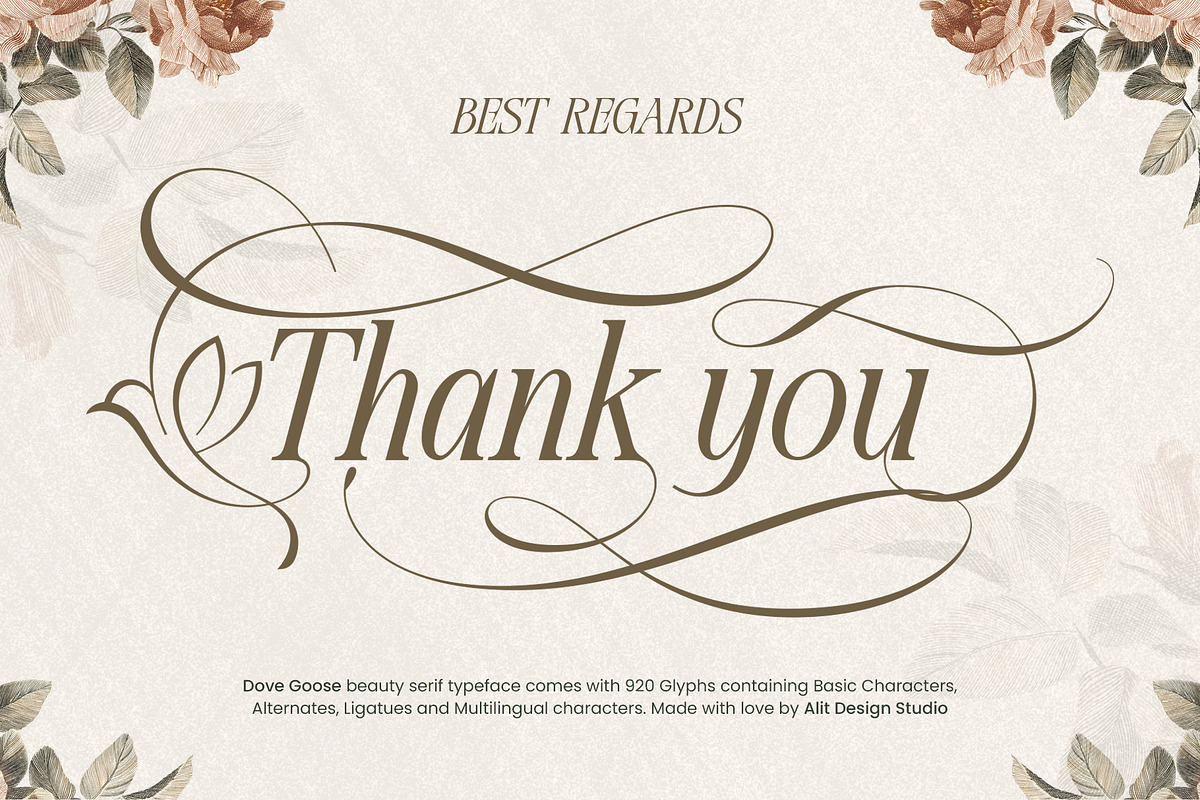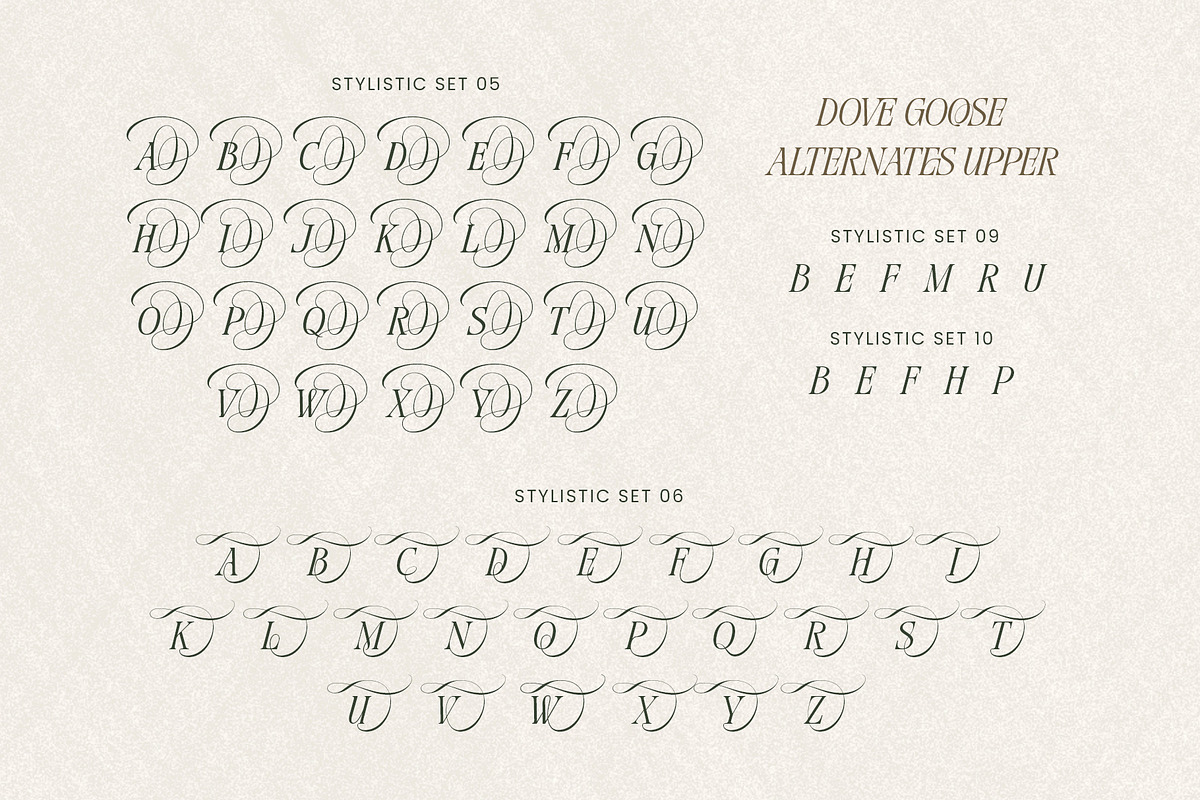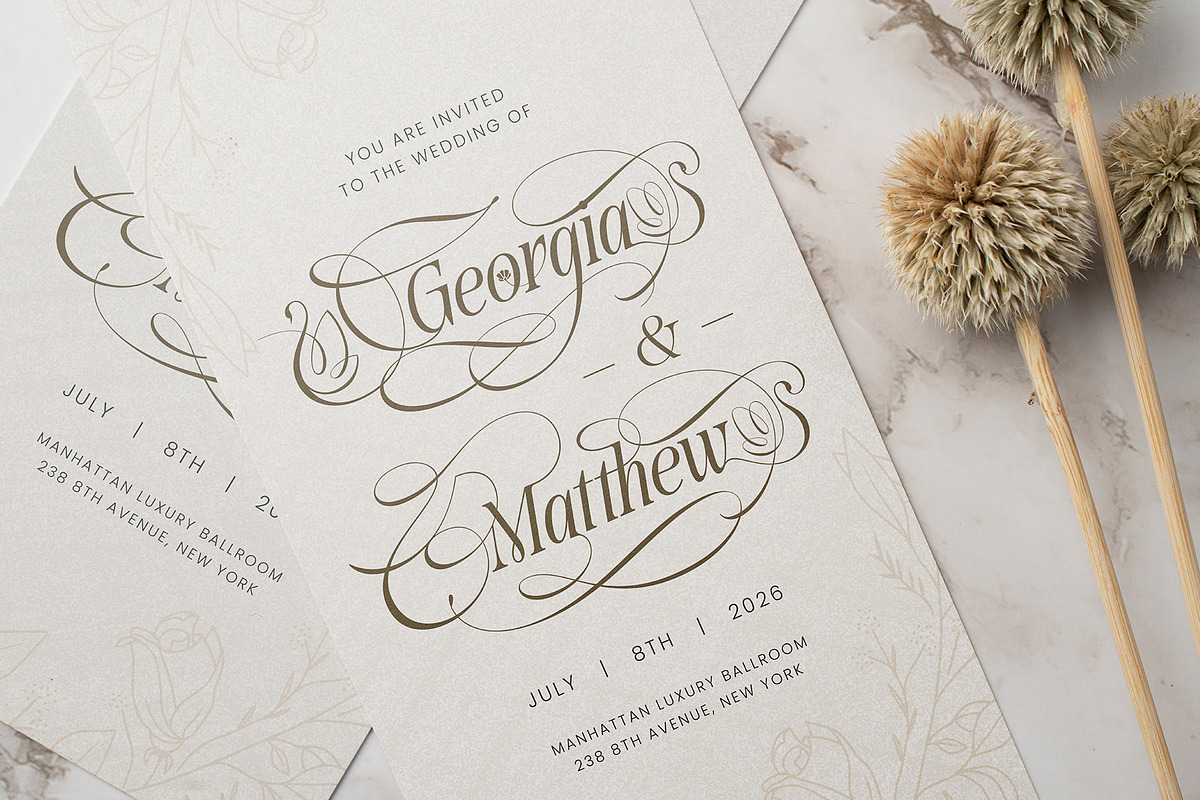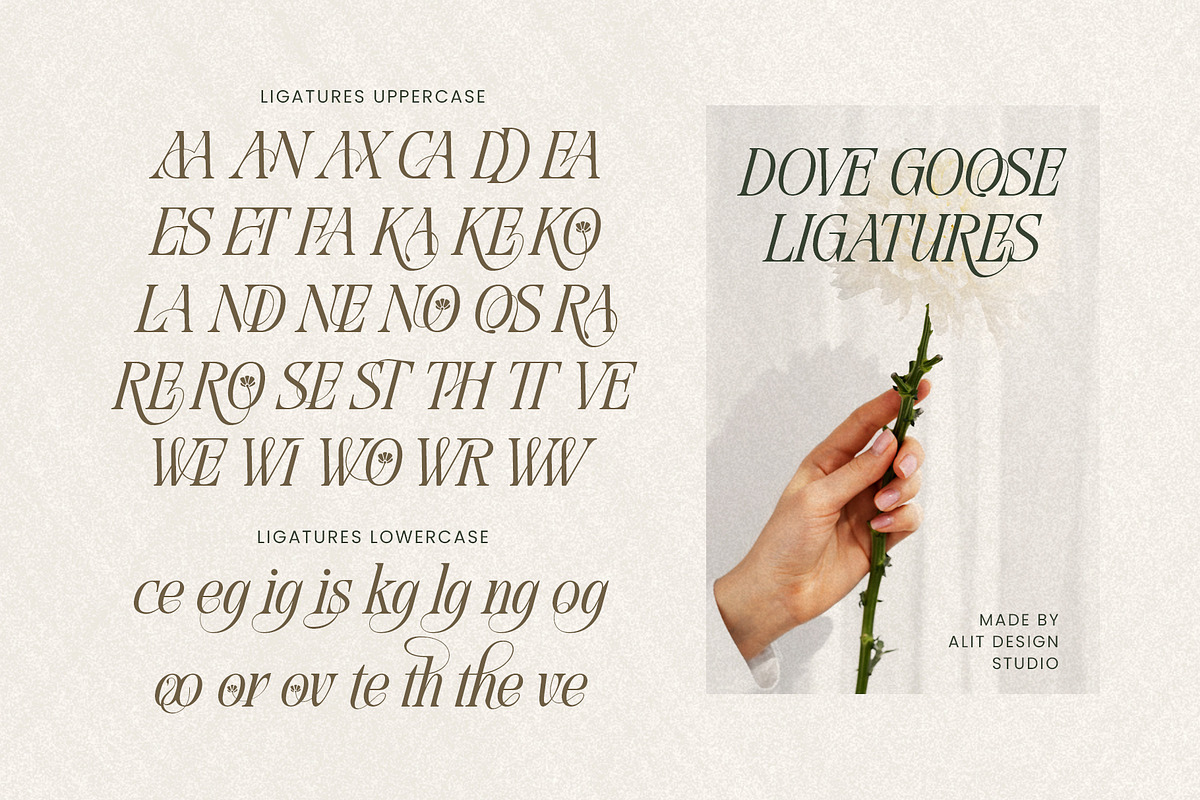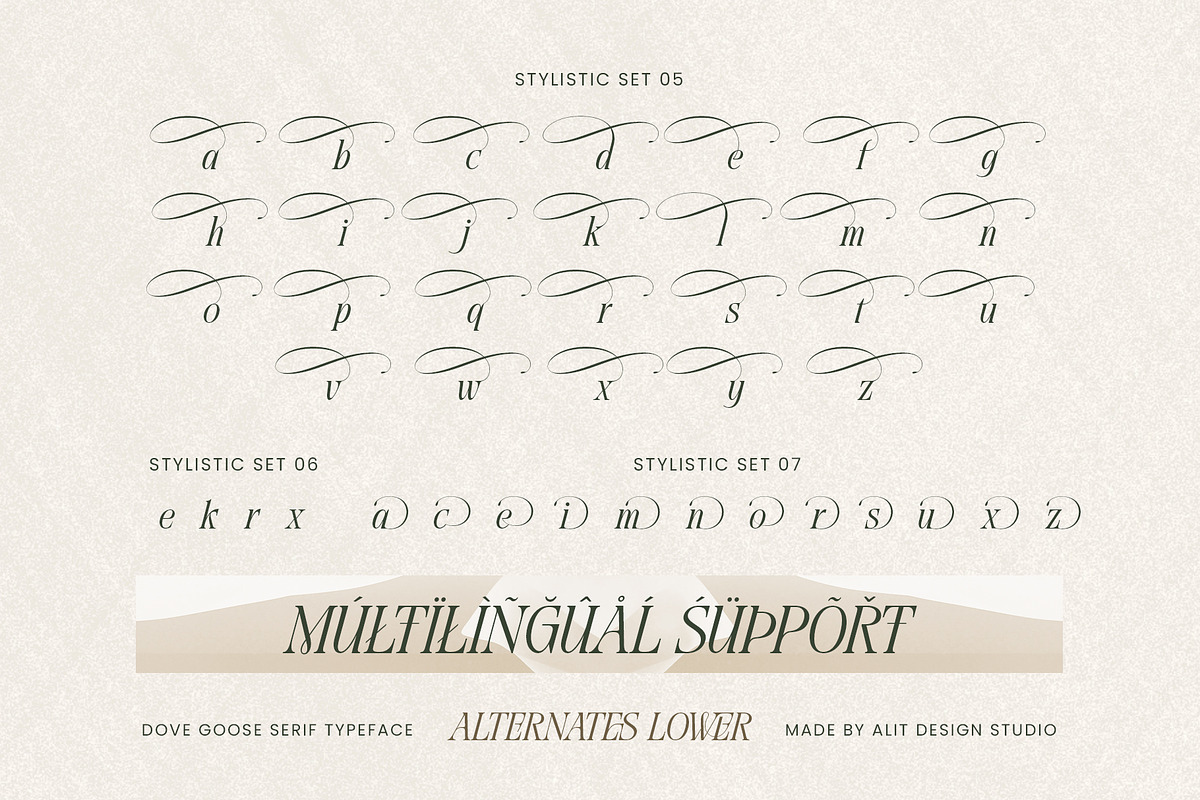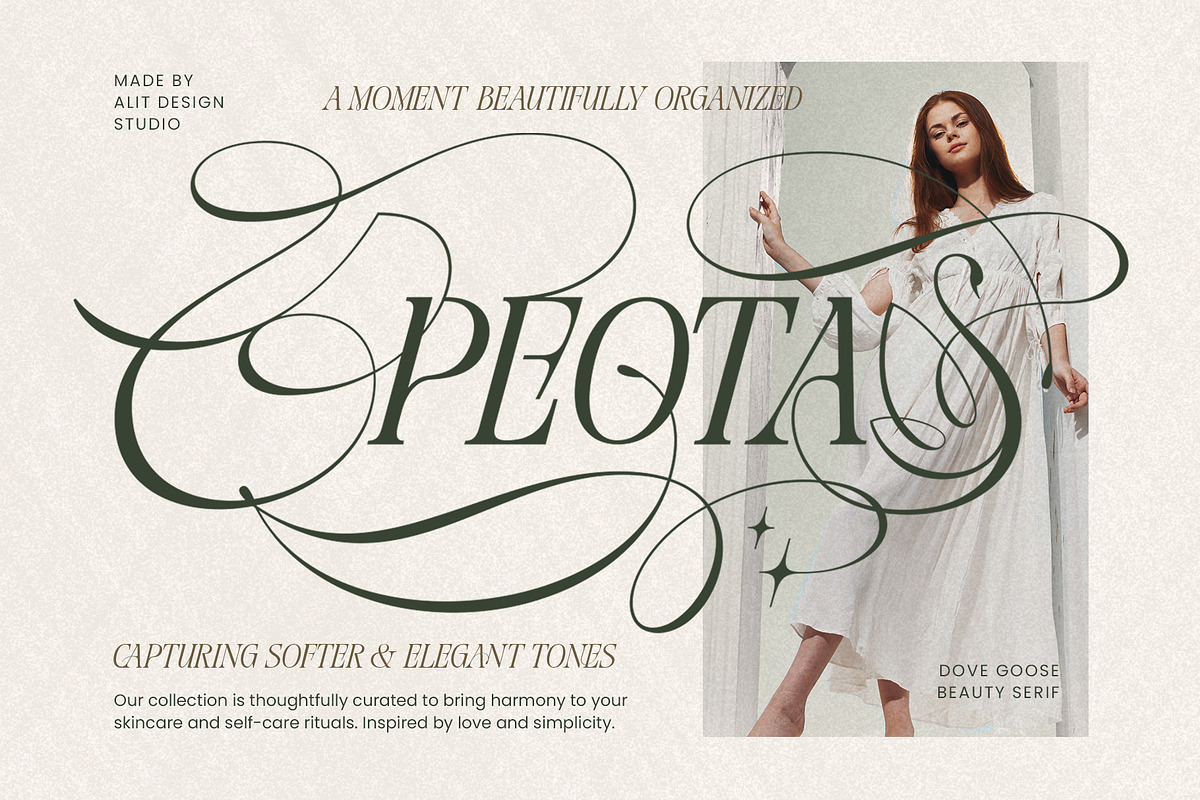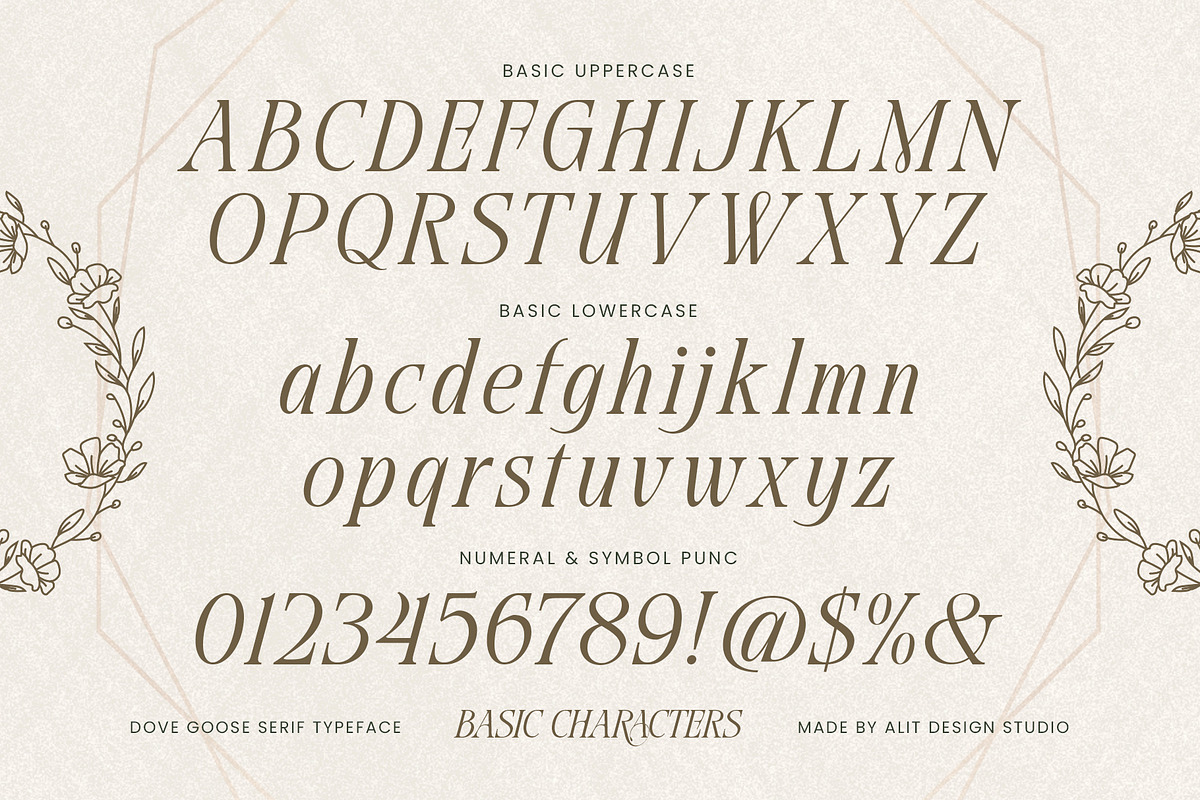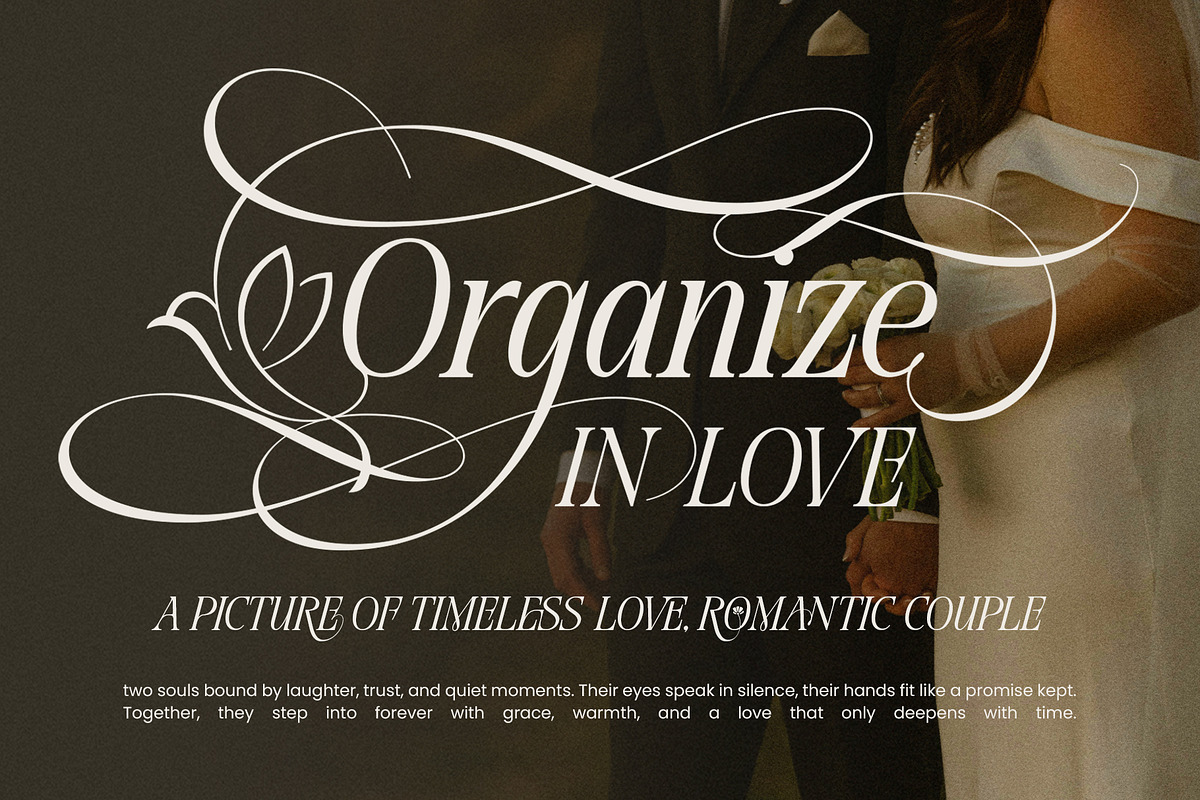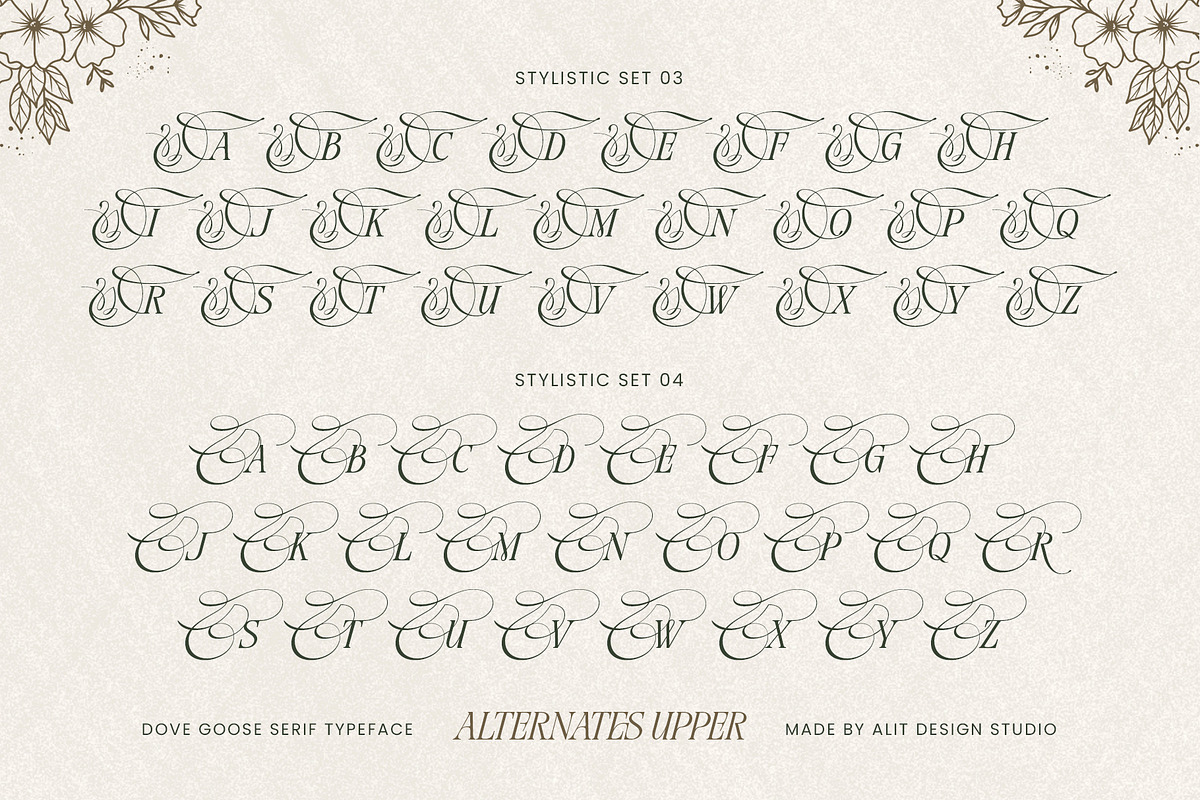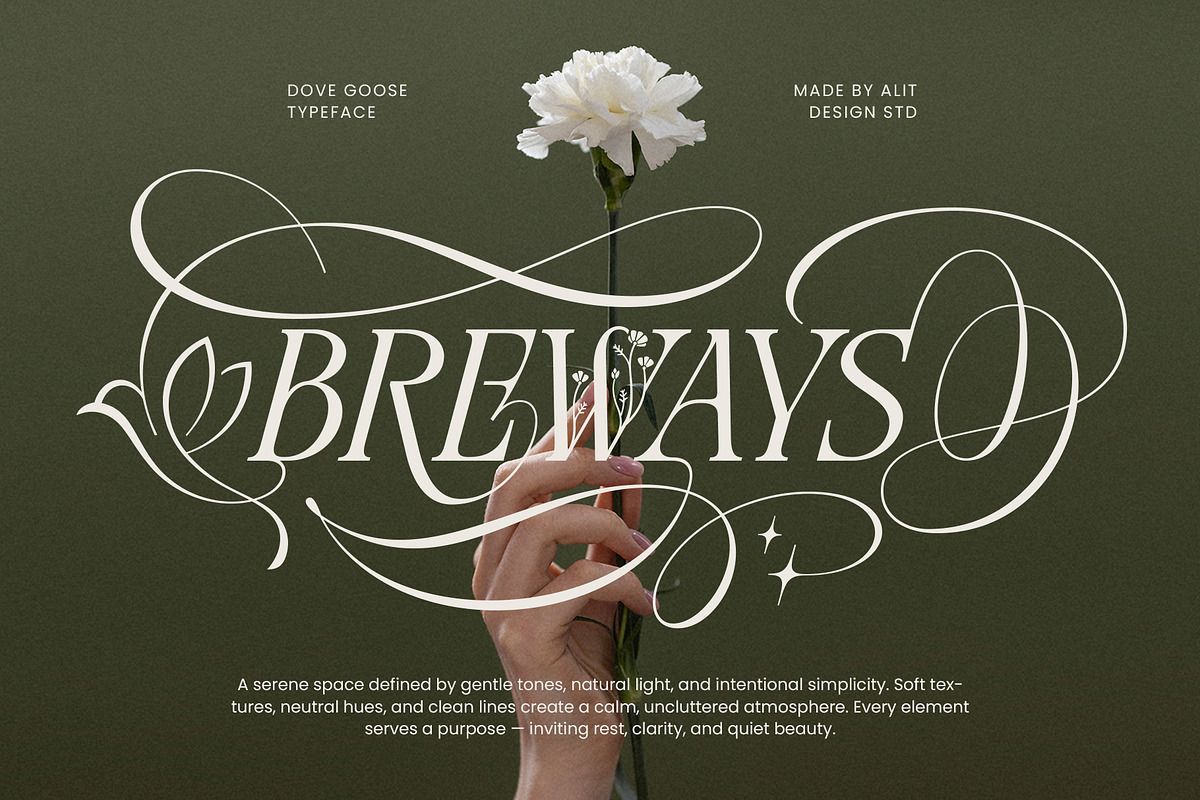
Dove and Goose Typeface
Dove & Goose Typeface: Where Modern Elegance Takes Flight
Introducing the captivating Dove & Goose Typeface, a meticulously designed modern serif that whispers tales of grace and sophistication. This isn't just a font; it's an artistic expression, where the timeless elegance of a slanted serif meets the fluid beauty of bespoke swashes, inspired by the serene flight of doves and the majestic presence of geese.
Imagine your words adorned with delicate curves and sweeping lines that effortlessly elevate your designs. The Dove & Goose Typeface boasts an extensive collection of glyphs, including a breathtaking array of elegant swashes that truly set it apart. Picture the gentle swoop of a dove's wing embellishing a capital letter, or the graceful neck of a goose flowing into a sophisticated ligature. These unique, carefully crafted swash variations provide designers with the power to create truly bespoke and memorable typography.
Dive Deeper into the Features:
Slanted Modern Serif Core: The foundation of this typeface lies in its beautifully balanced, slightly italicized serif structure. This lends a touch of dynamic movement and contemporary flair while maintaining exceptional readability.
-Inspired Swash Artistry: The true magic of Dove & Goose lies within its stunning swash collection. Each swash is thoughtfully designed to evoke the essence of its namesake, adding a touch of whimsical elegance and organic beauty to your text. Discover variations that mimic the soft flutter of dove wings and the stately curves of a goose's silhouette.
-Rich Set of Alternates and Ligatures: Beyond the signature swashes, this typeface offers a wealth of stylistic alternates and ligatures. These additional characters allow for nuanced customization, enabling you to fine-tune the visual rhythm and personality of your typography. Craft unique wordmarks and ensure harmonious letter pairings.
-Versatility Across Design Realms: Whether you're crafting a high-end brand identity, designing luxurious wedding stationery, laying out captivating editorial content, or packaging exquisite products, Dove & Goose is your perfect companion. Its inherent elegance and unique swash options make it adaptable to both classic and contemporary design aesthetics.
-Elevate Your Visual Narrative: This typeface isn't just about conveying words; it's about telling a story through the art of typography. The Dove & Goose Typeface imbues your projects with a sense of refinement, creativity, and unparalleled visual interest, leaving a lasting impression on your audience.
Unlock a world of design possibilities with the Dove & Goose Typeface. Let your creativity soar with its elegant curves and uniquely inspired swashes. Experience the perfect harmony of modern design and timeless grace.